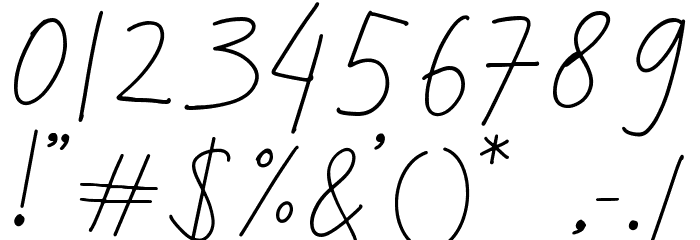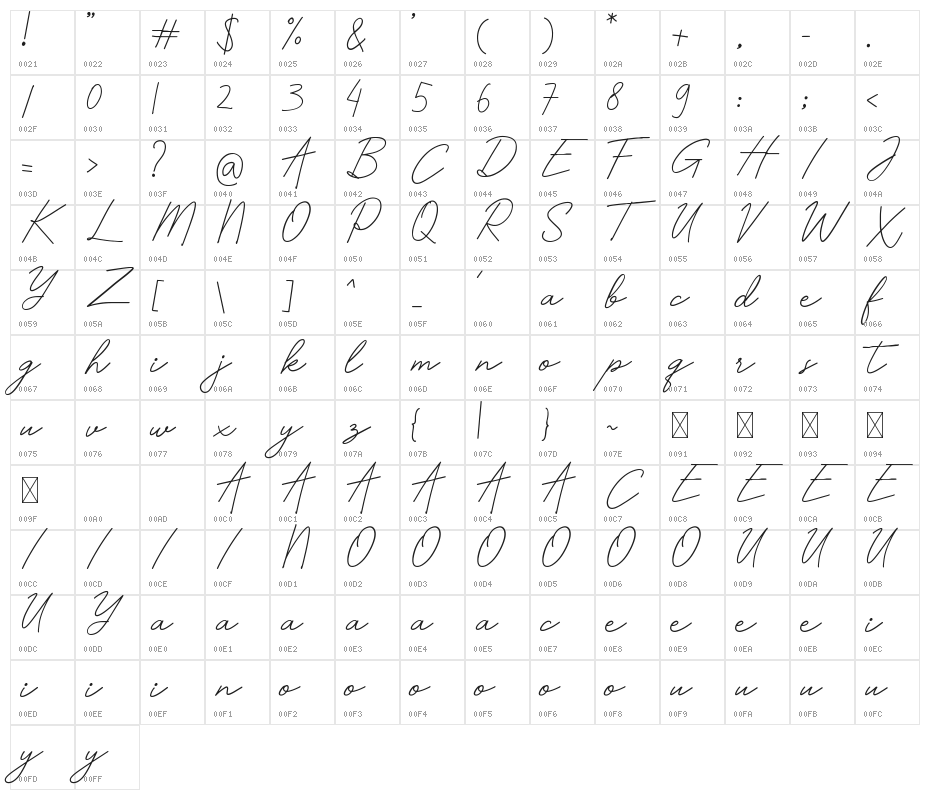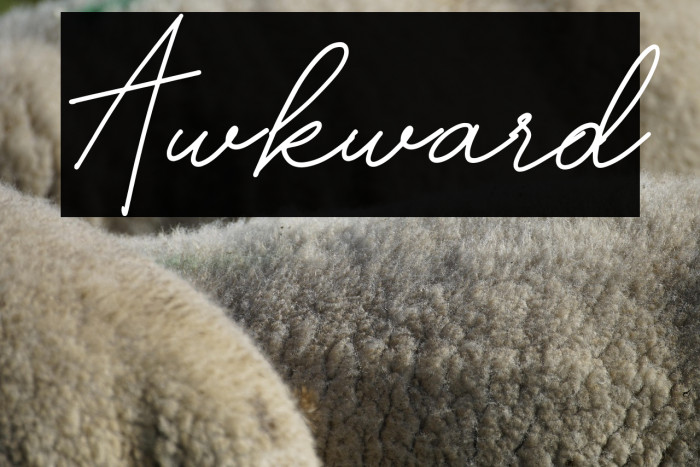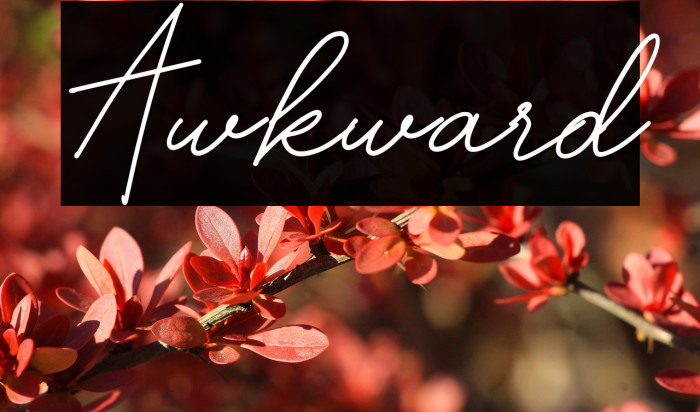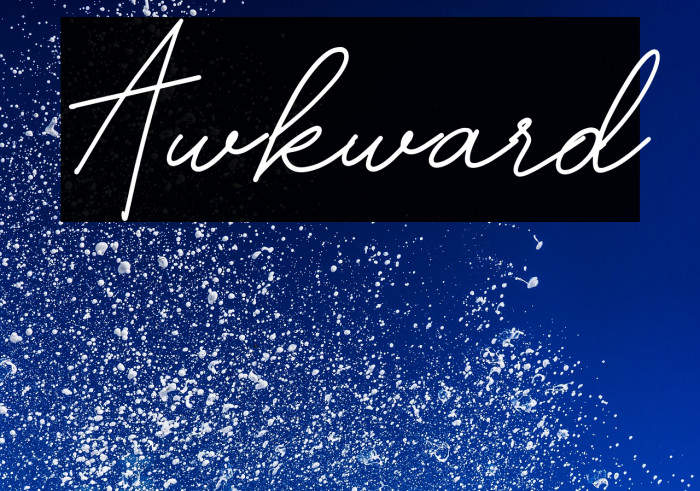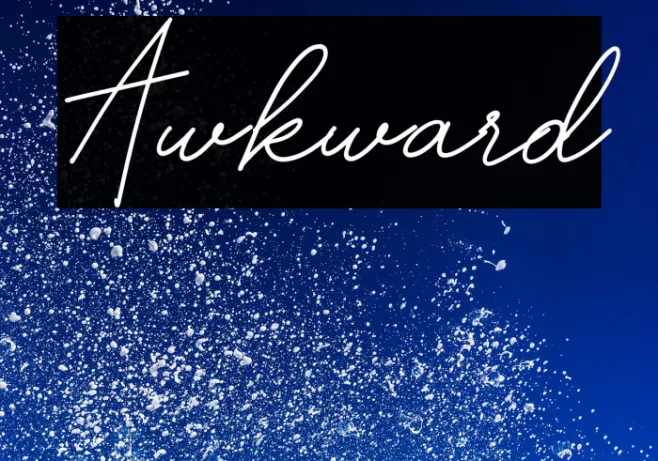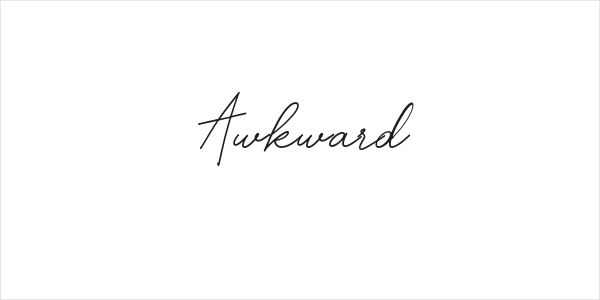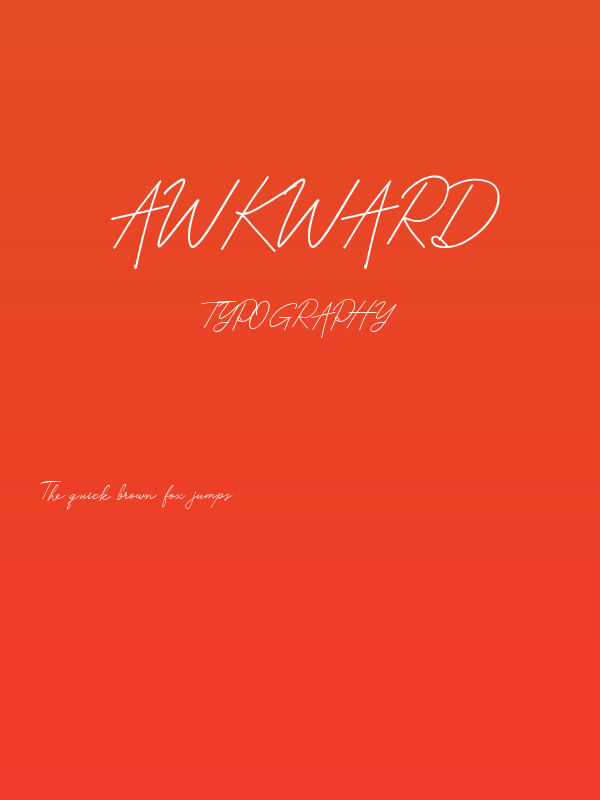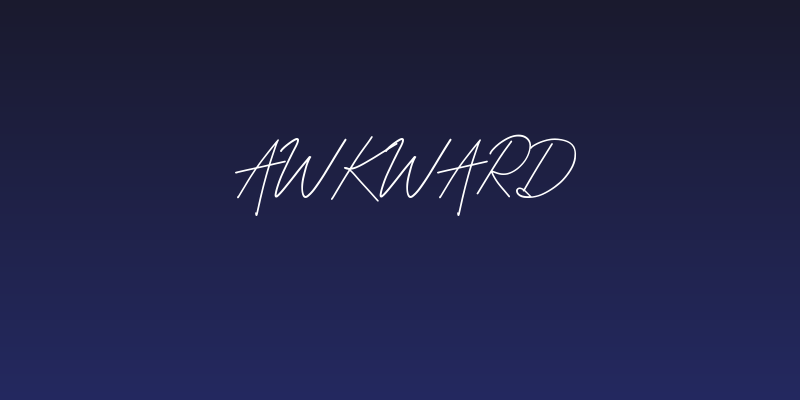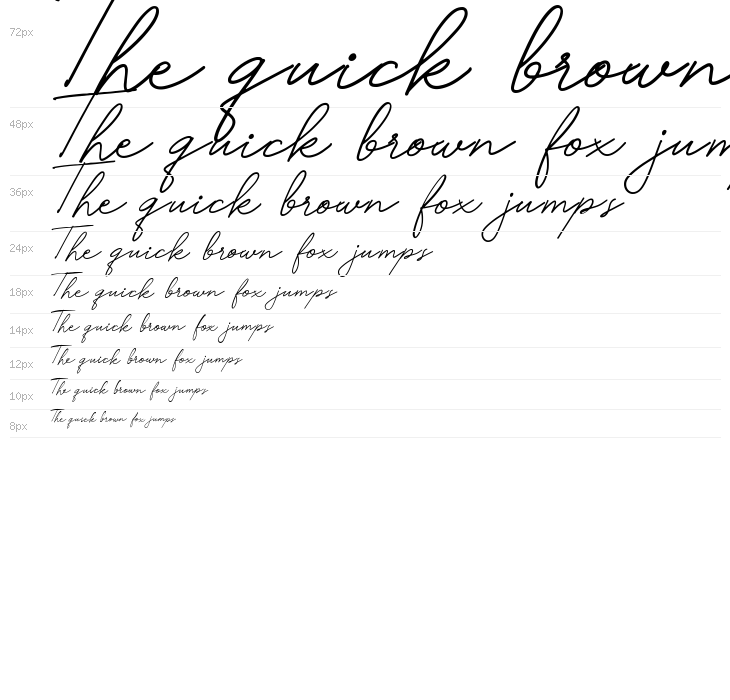
Awkward Font
Awkward Description
This font features a fluid, cursive style with a handwritten appearance. The letters are connected, creating a seamless flow that mimics natural handwriting. The uppercase letters are elegant and slightly elongated, while the lowercase letters maintain a consistent and smooth baseline. The numerals are clear and legible, matching the overall cursive style. Special characters are integrated seamlessly, maintaining the font's cohesive look. The strokes are consistent in thickness, providing a balanced and harmonious appearance.
| Overall Style | Handwritten |
| Use Case | Logos, Invitations, Personal notes |
| Proposed Projects | Ideal for personal invitations, greeting cards, branding projects, and any design requiring a personal touch. |